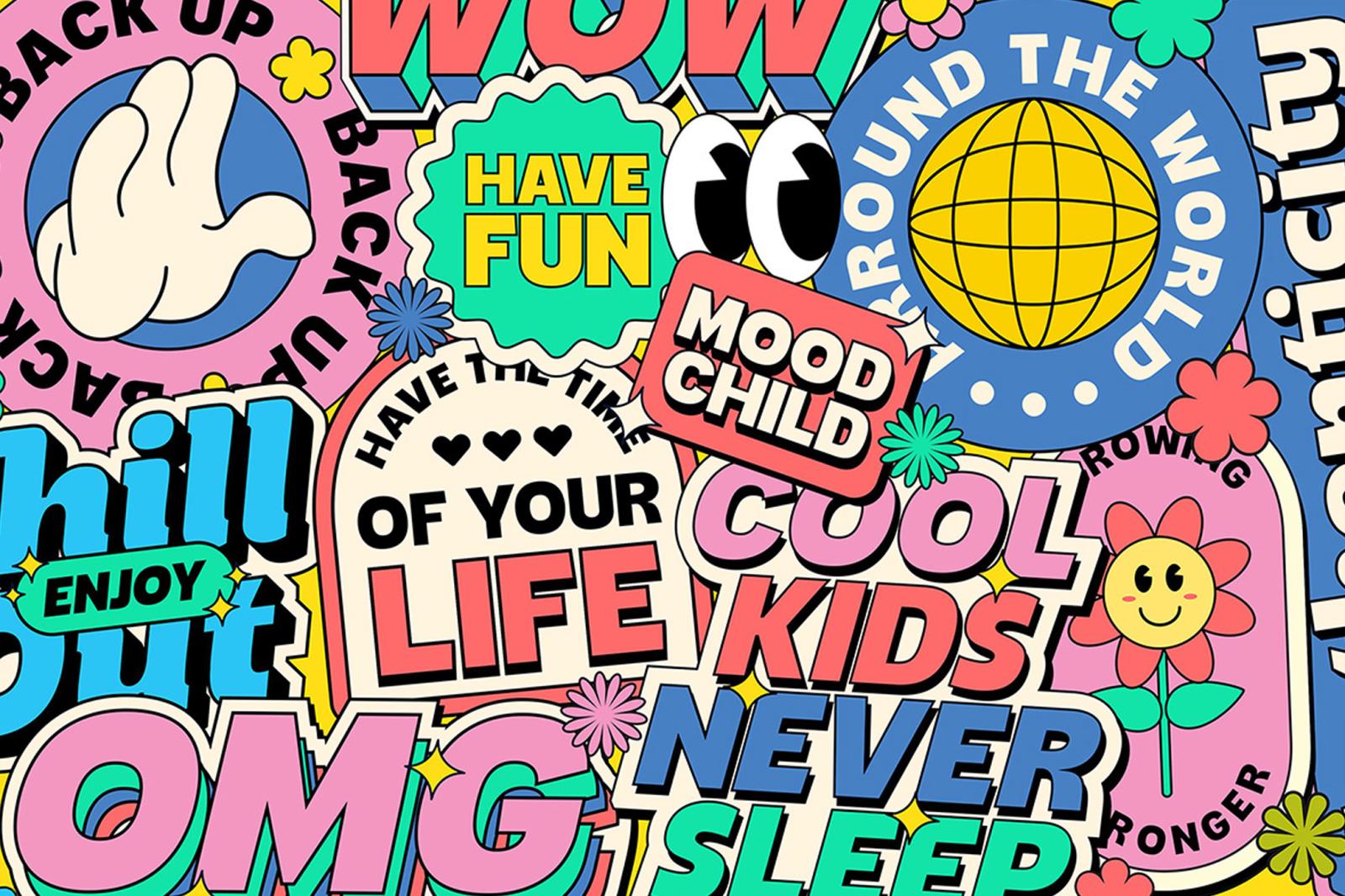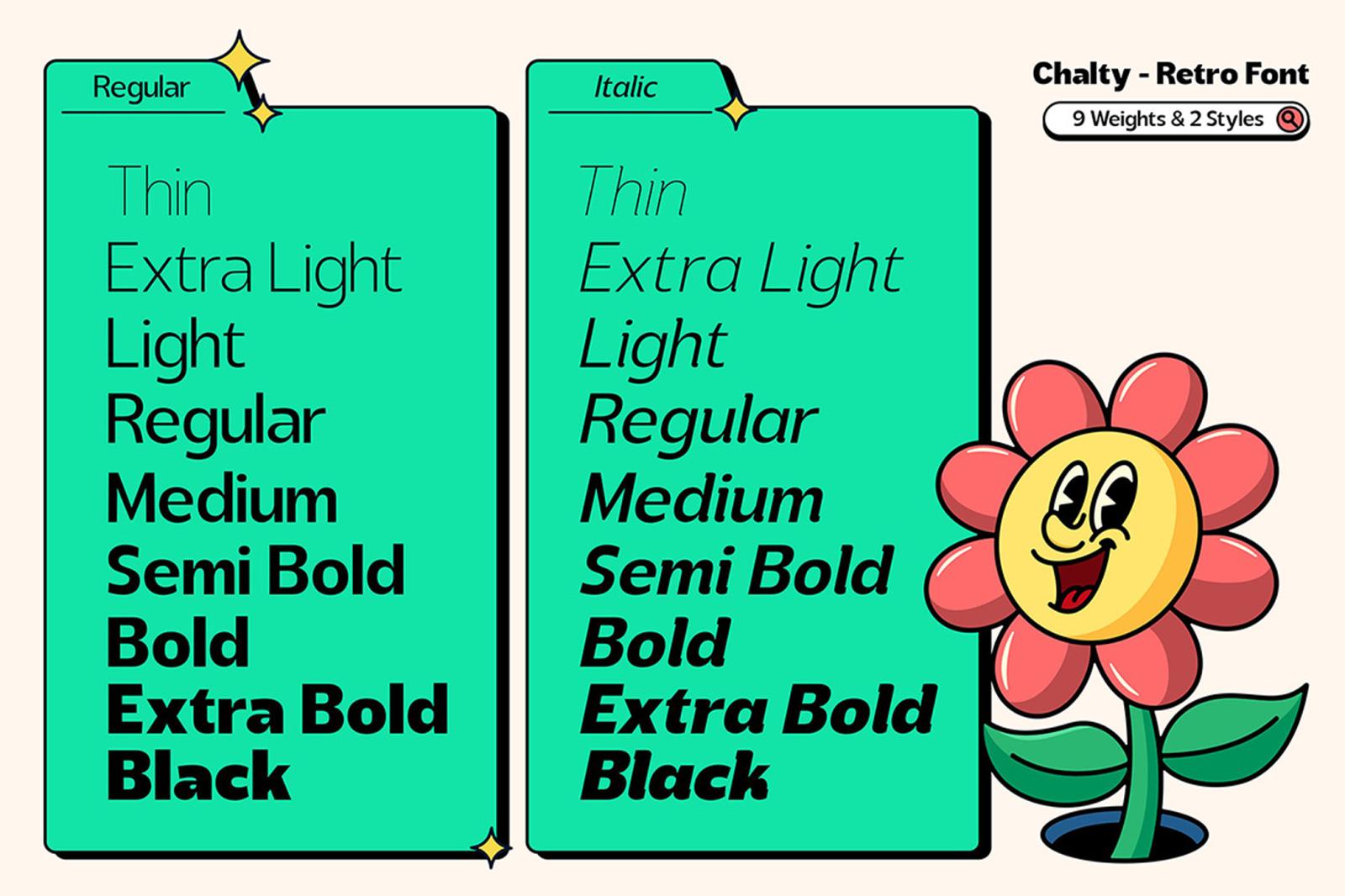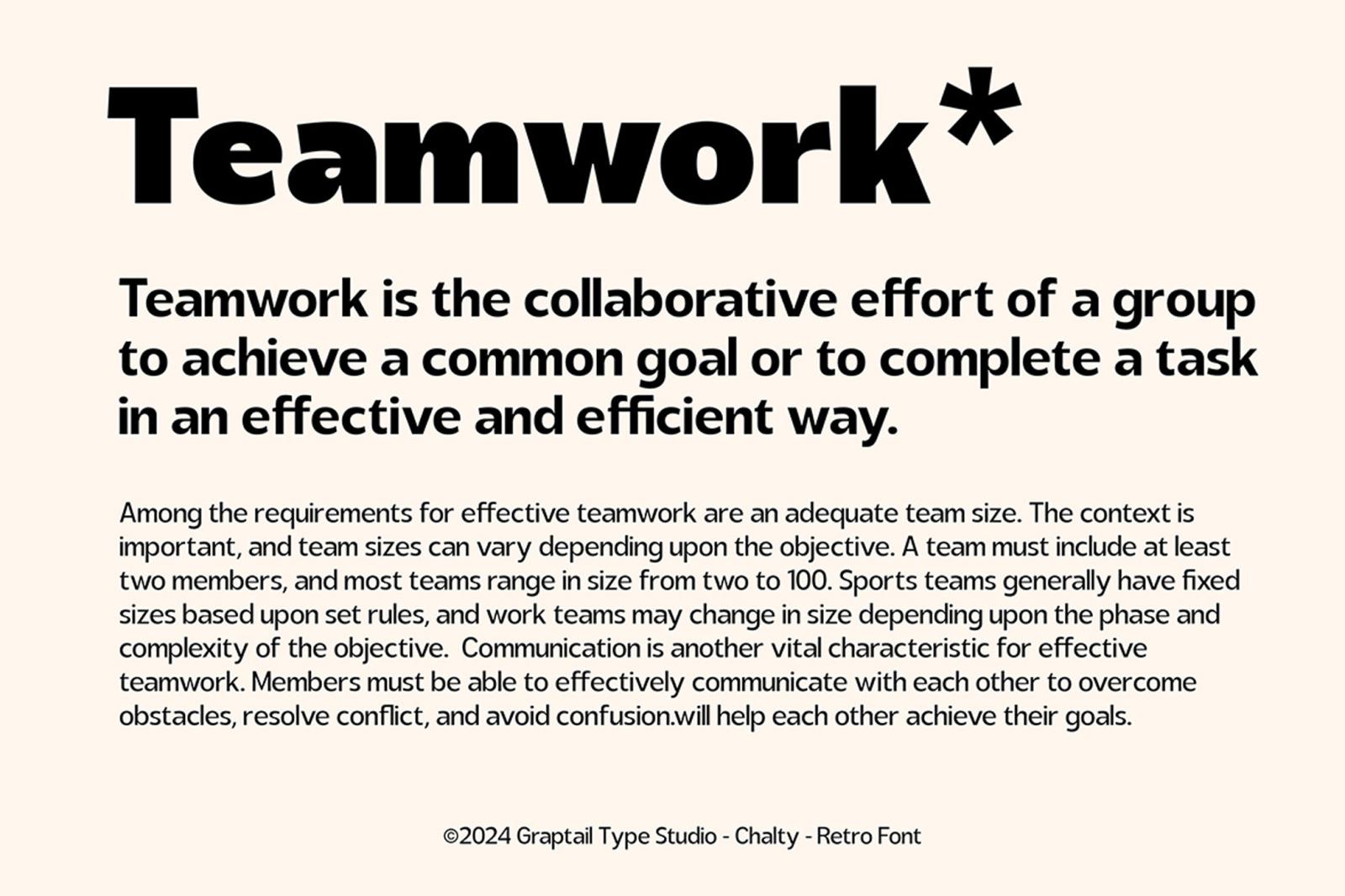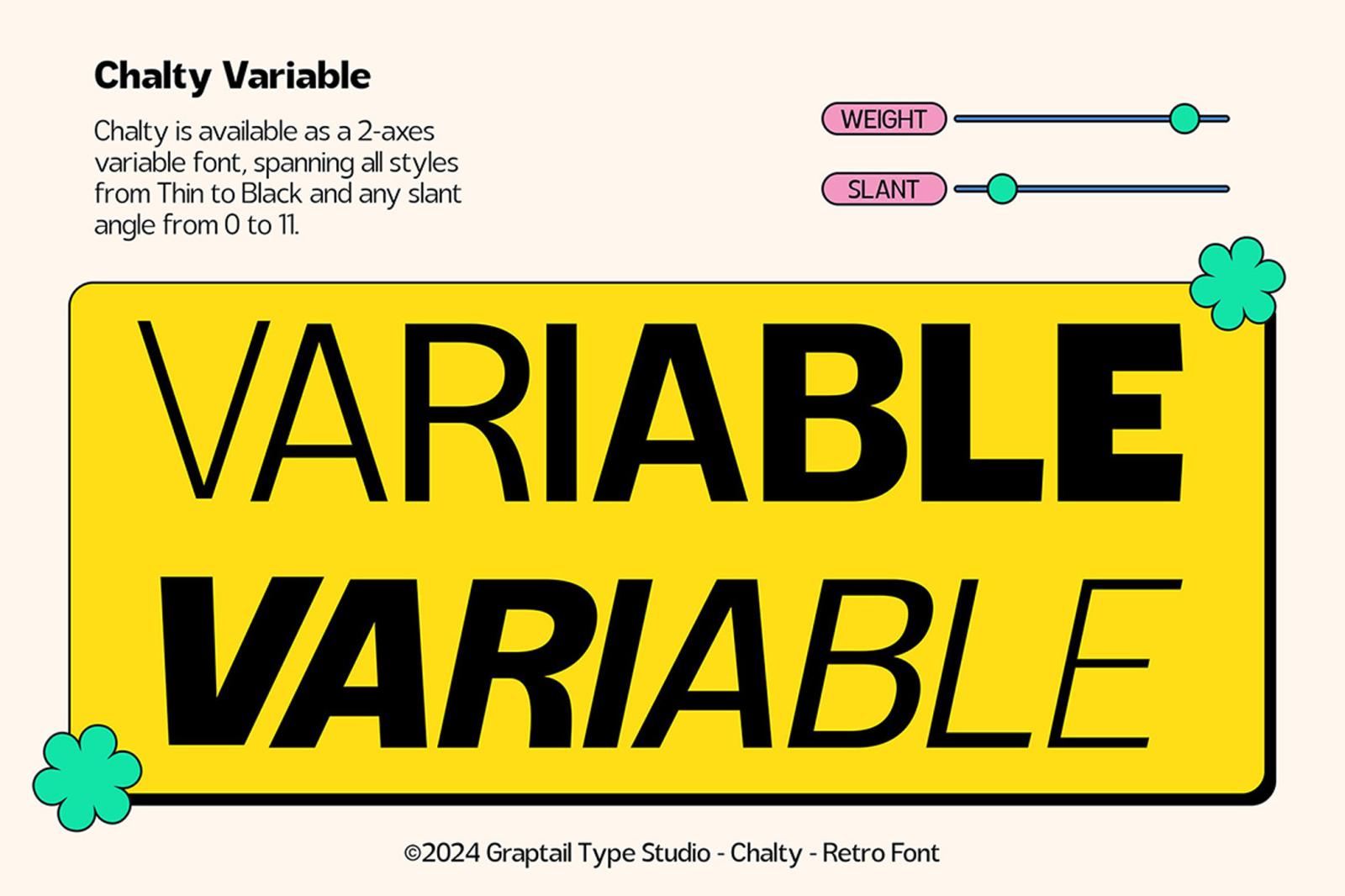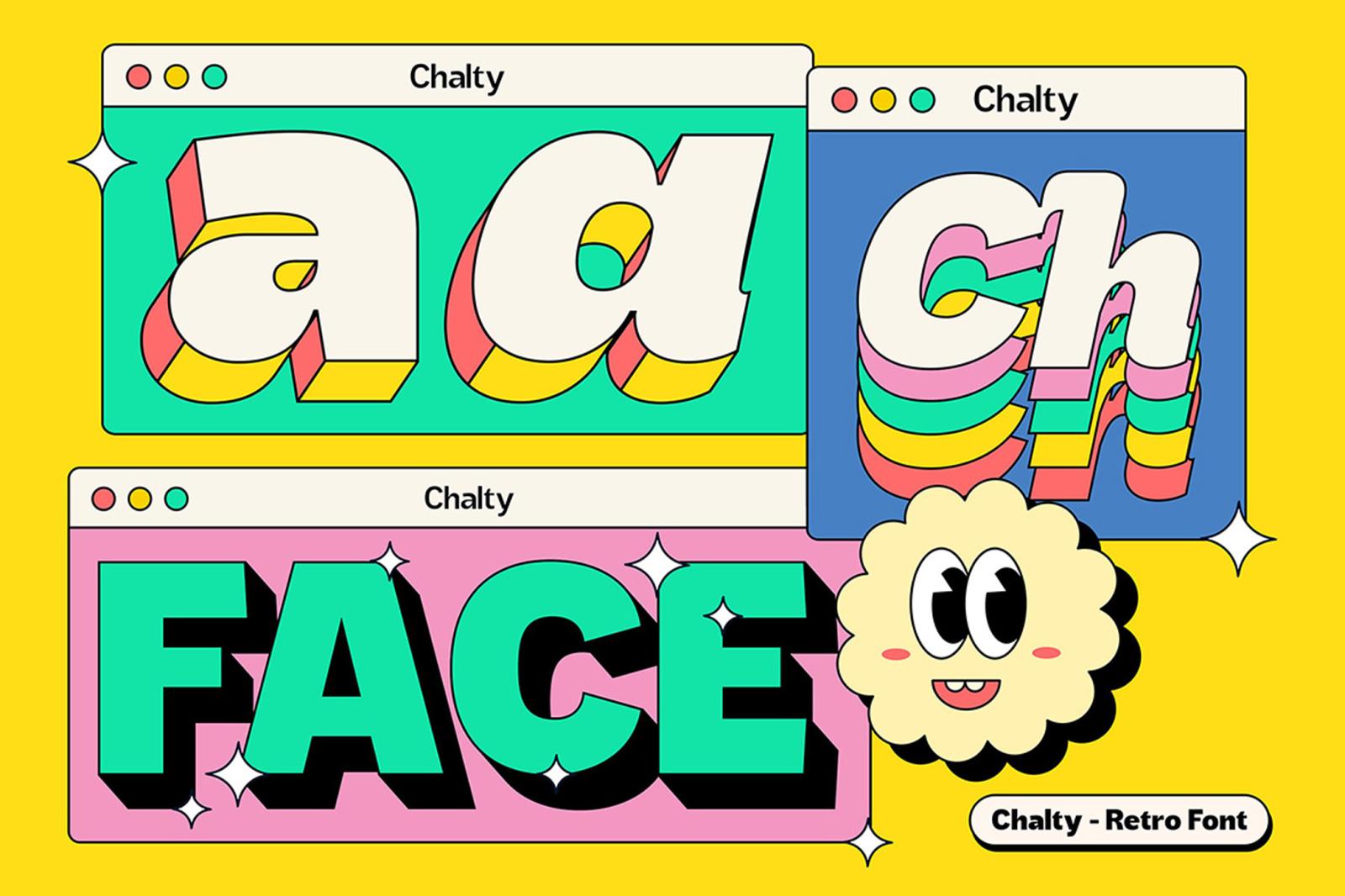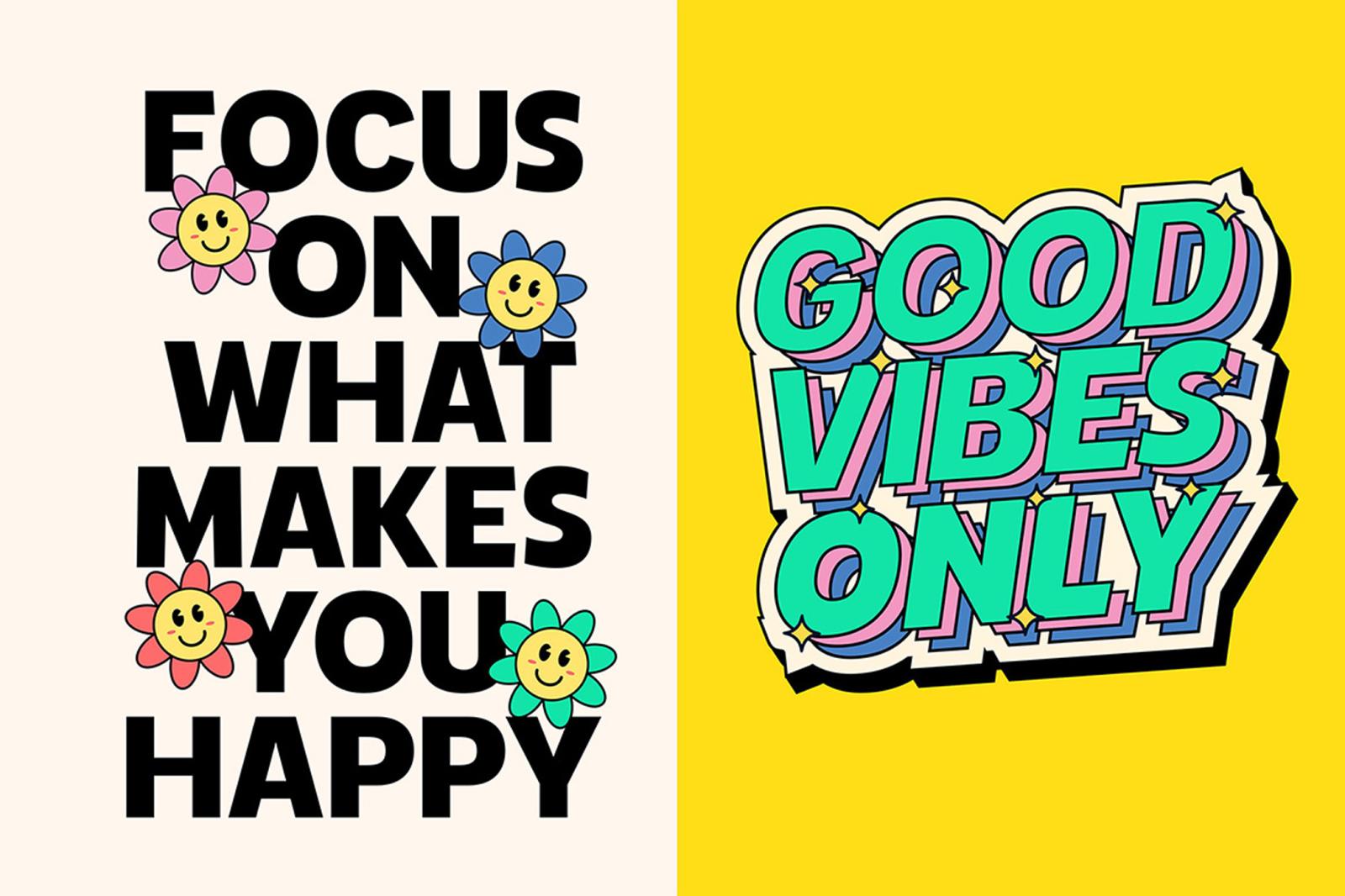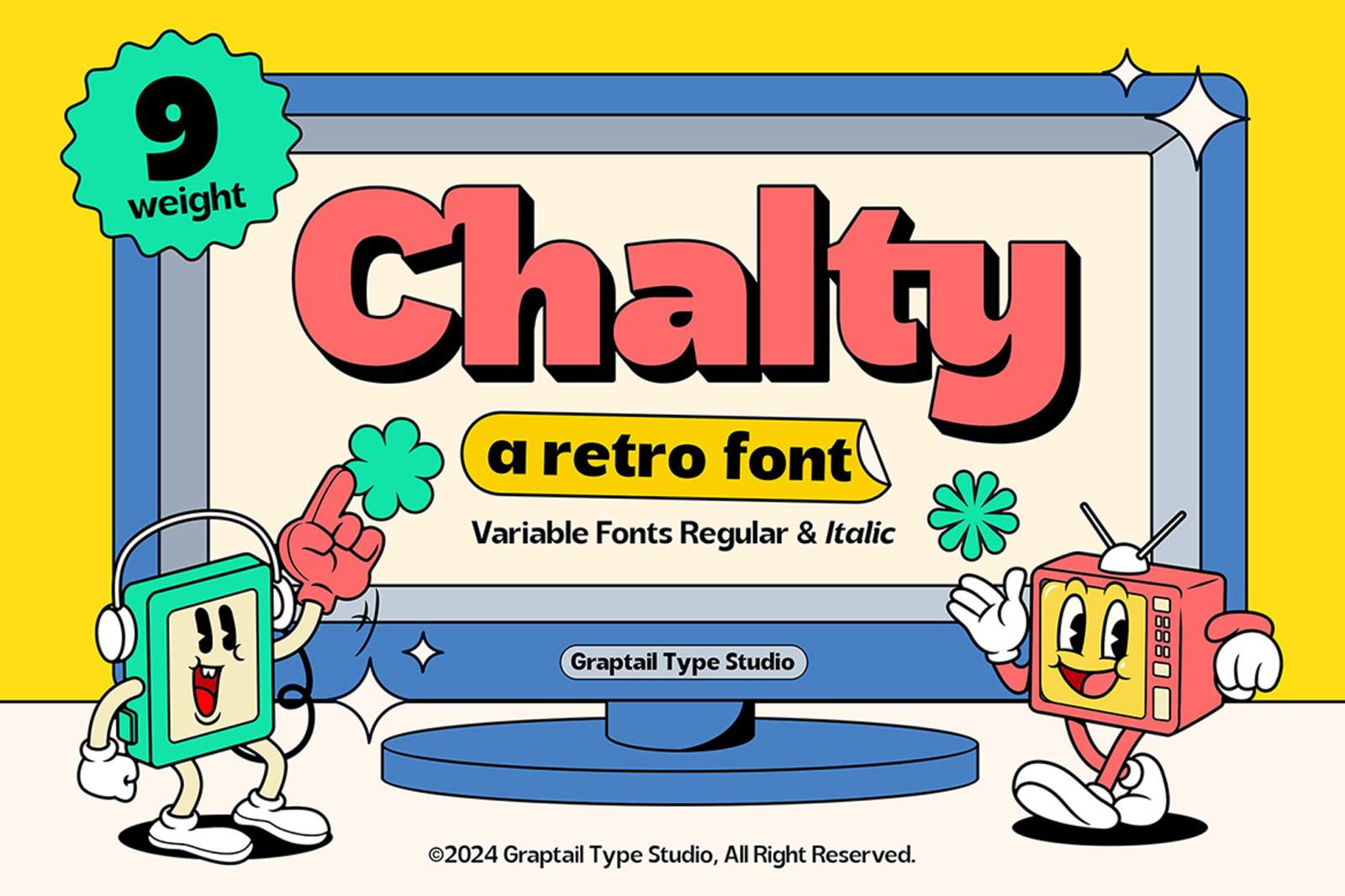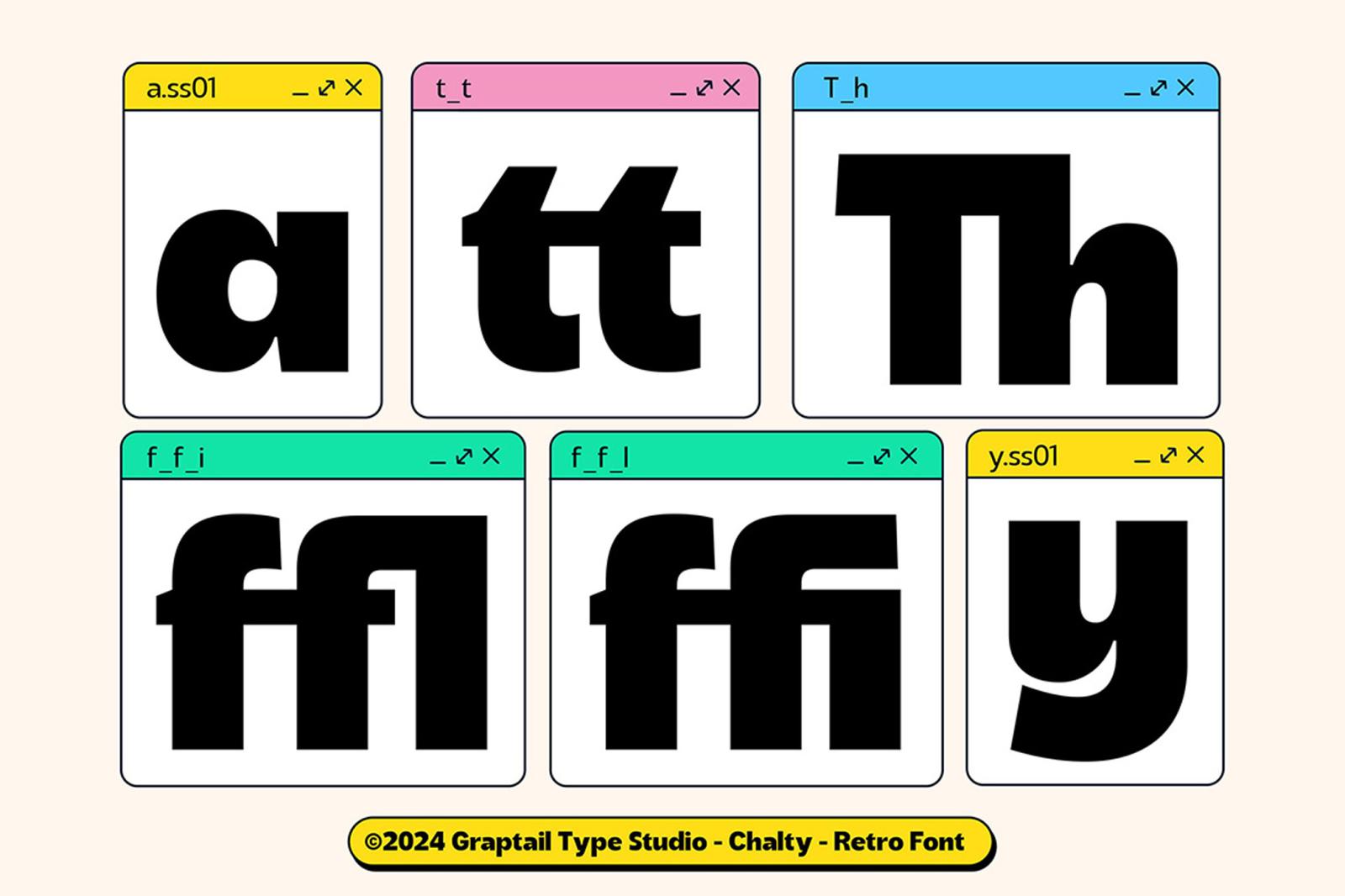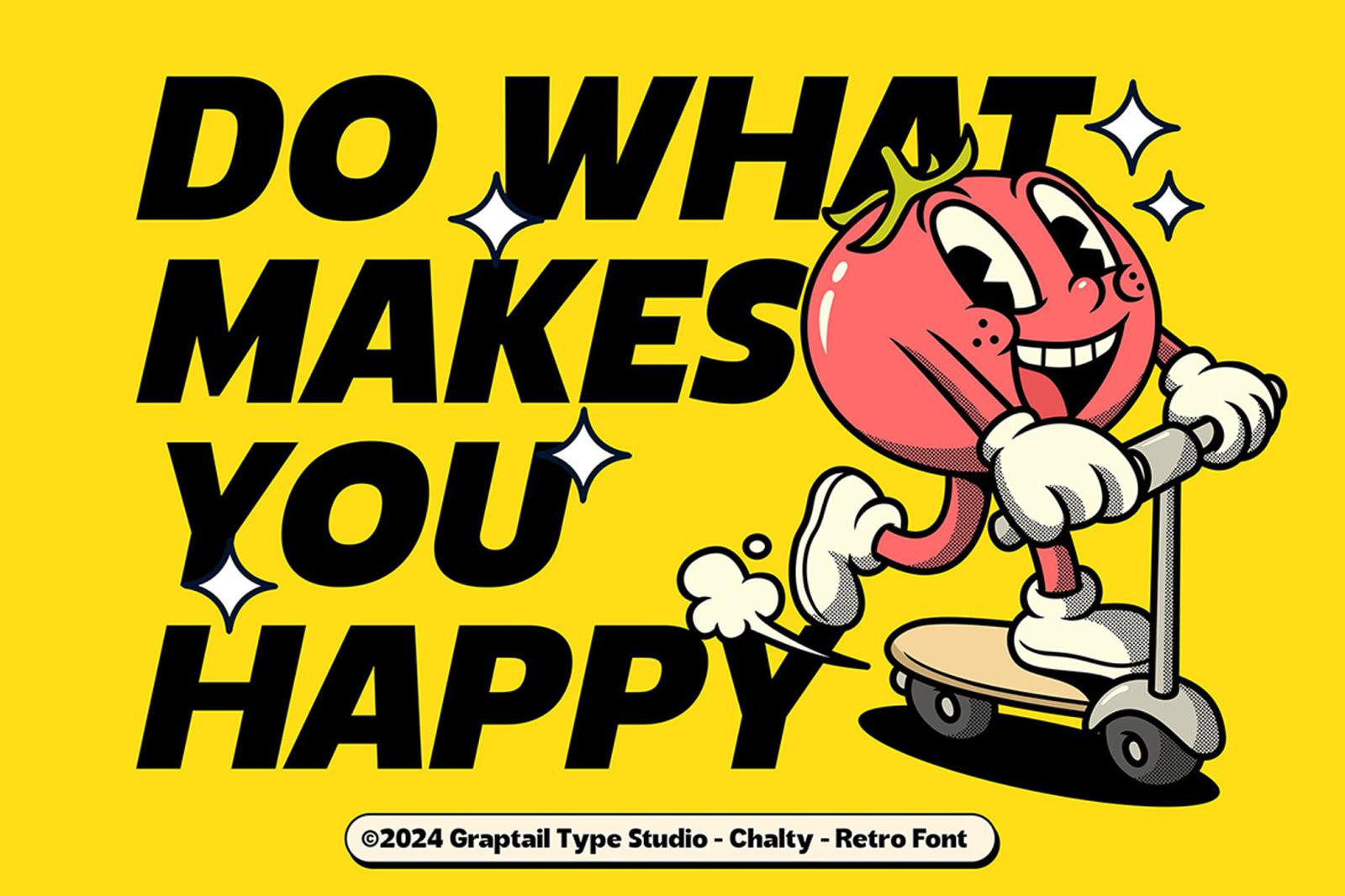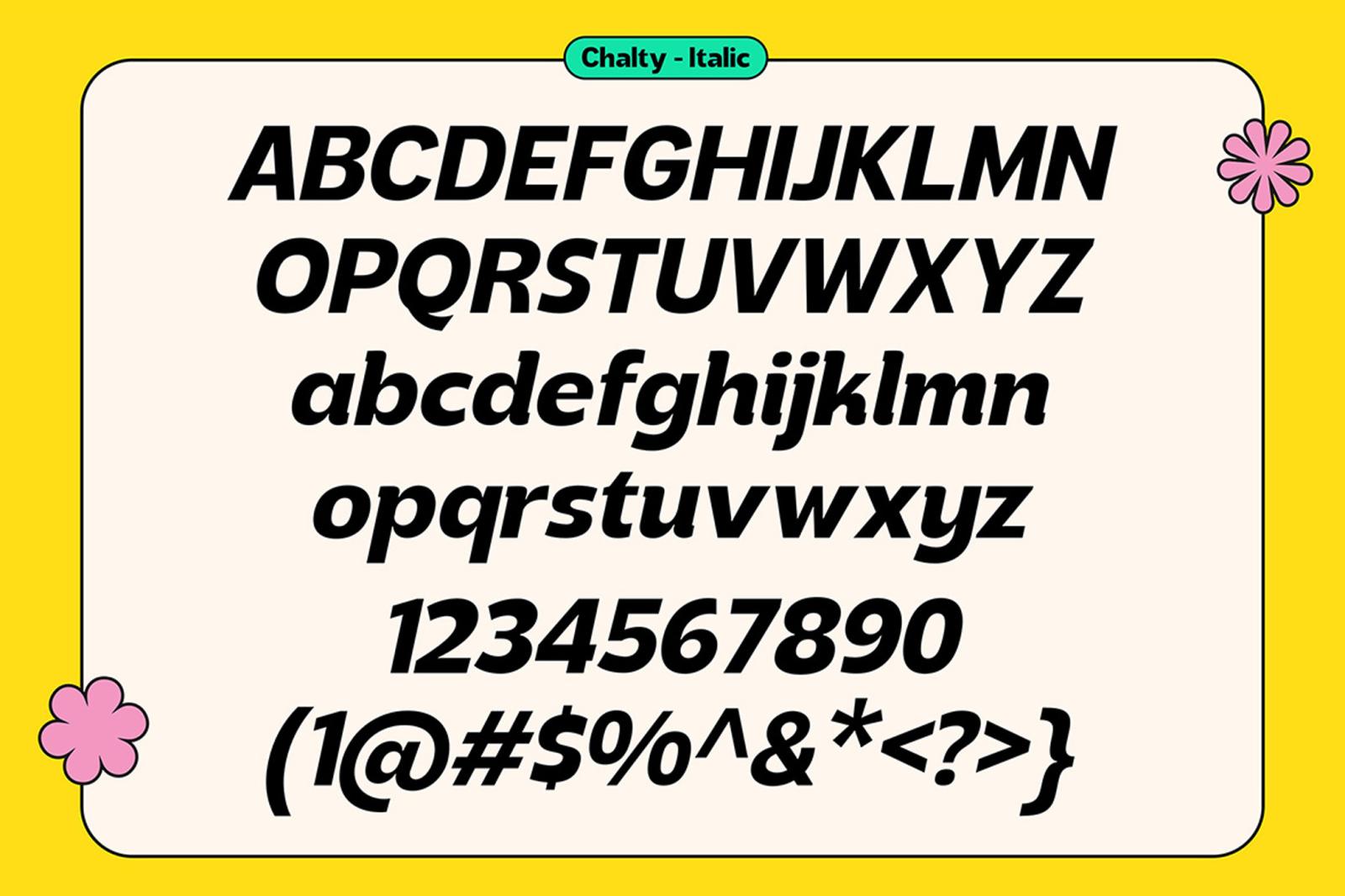
Chalty — Retro Font Family
What could be more delightful than a friendly, rounded sans-serif font with a charming retro vibe? Well, how about that same font coming as an extensive variable font family? Yeah, we’re thrilled just as you do.
The Chalty font family is like a time machine for your design projects — only, instead of gears and steam, it’s powered by the sweet nostalgia of the 80s and 90s, wrapped up in the modern crispness of today’s typography. Packed with 18 carefully crafted variations, Chalty offers 9 weights in 2 styles — regular and italic. That’s right, it’s like the font version of a Swiss Army knife! With its two-axis variable font system, you can tweak the weight and slant to your heart’s content, making sure your design is as unique as your imagination.